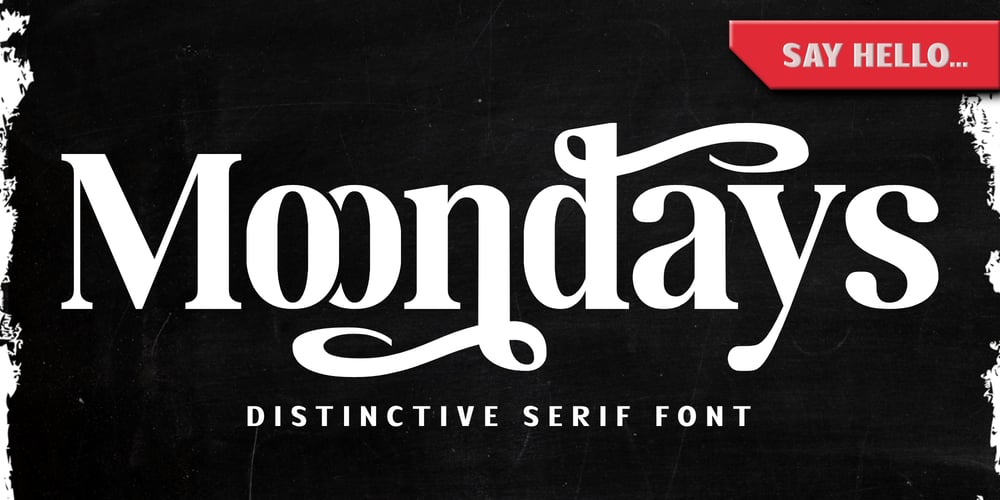
Moondays
Moondays font
Moondays Font Family was designed by Tri Kuncoro and published by Greentrik6789. Moondays contains 5 styles and family package options. Moondays Font is a unique and contemporary serif font that adds a distinctive aesthetic to your design projects. This versatile display font is perfect for creating eye-catching headlines, titles, and logos. Discover the beauty of Moondays Font and elevate your designs to the next level.